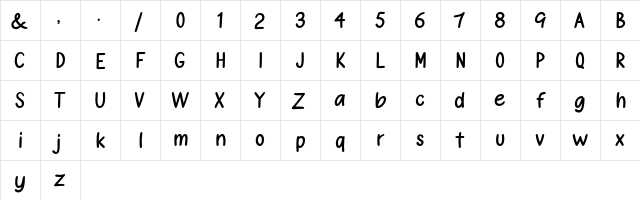
Vanilla Twilight Regular
Design Context for Vanilla Twilight Typeface
Vanilla Twilight is a composed and adaptable typeface that performs quietly and consistently across a wide range of design contexts. The delicate stroke weight brings airiness and refinement to layouts.
Pro Tip: Use Vanilla Twilight in both headline and body roles to test its range before committing to a single application.